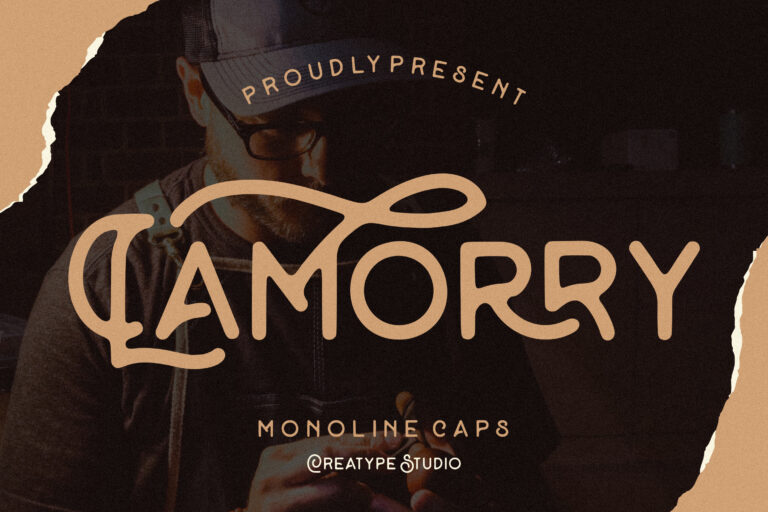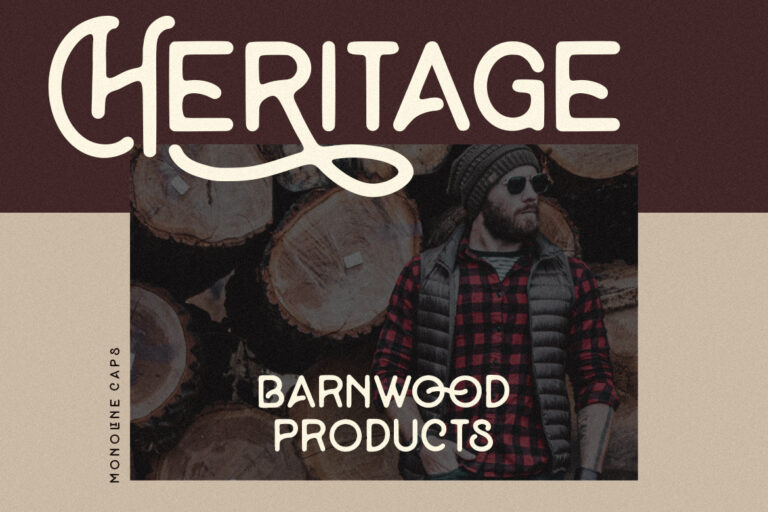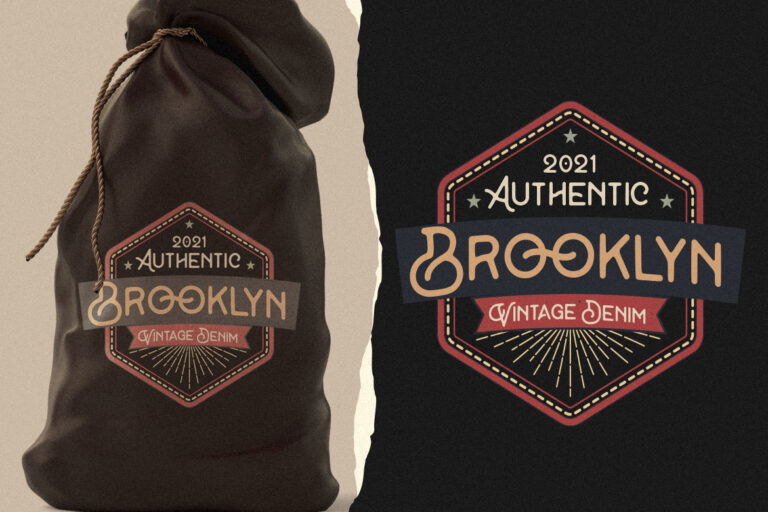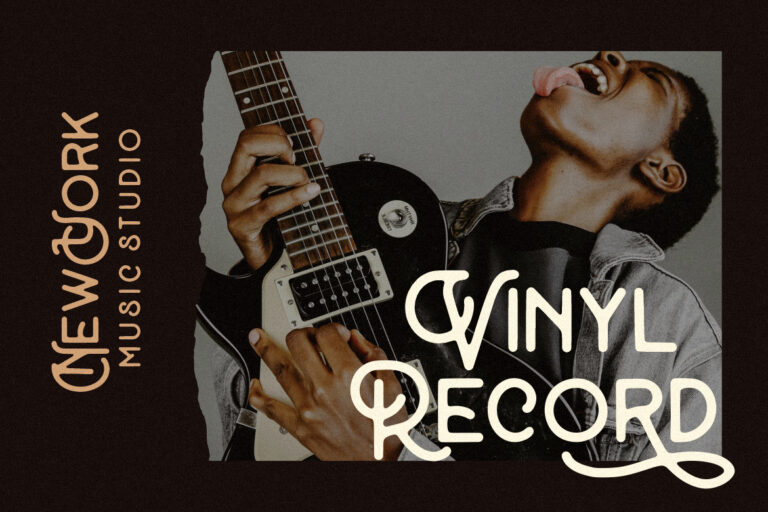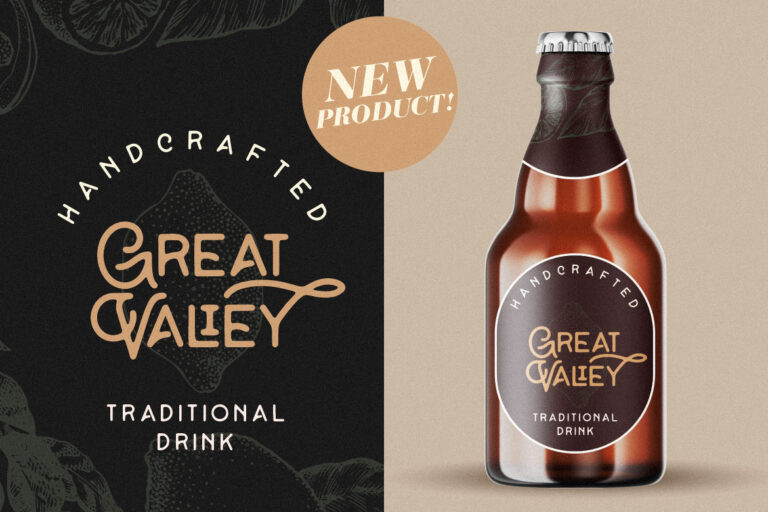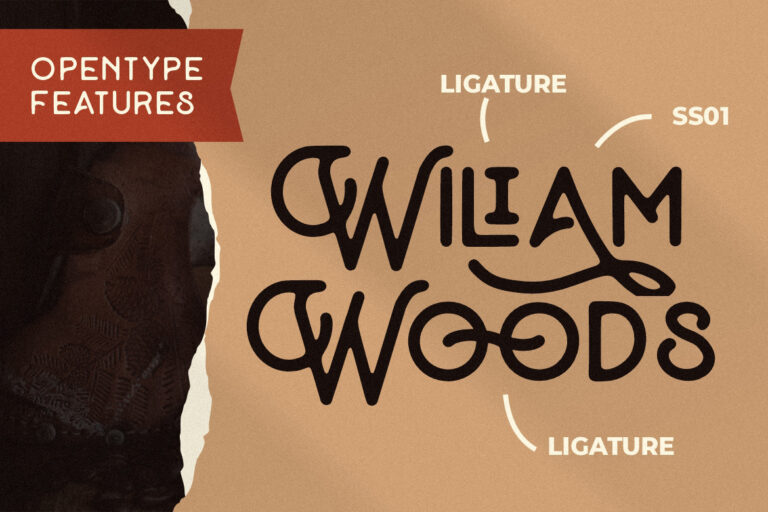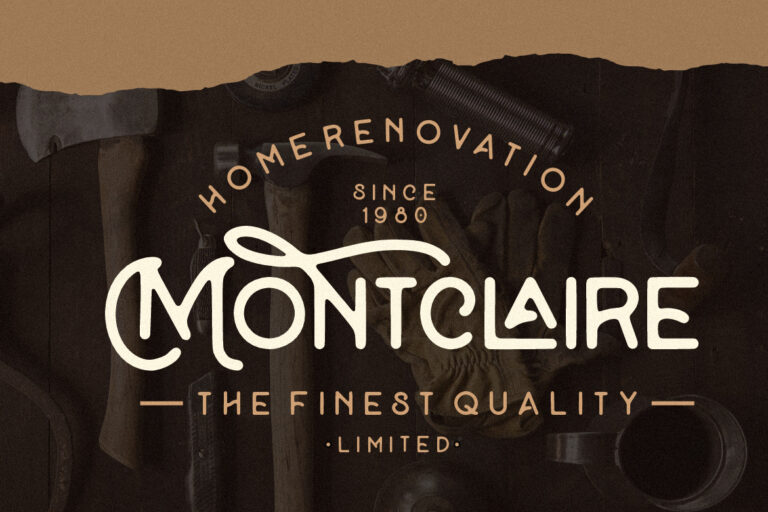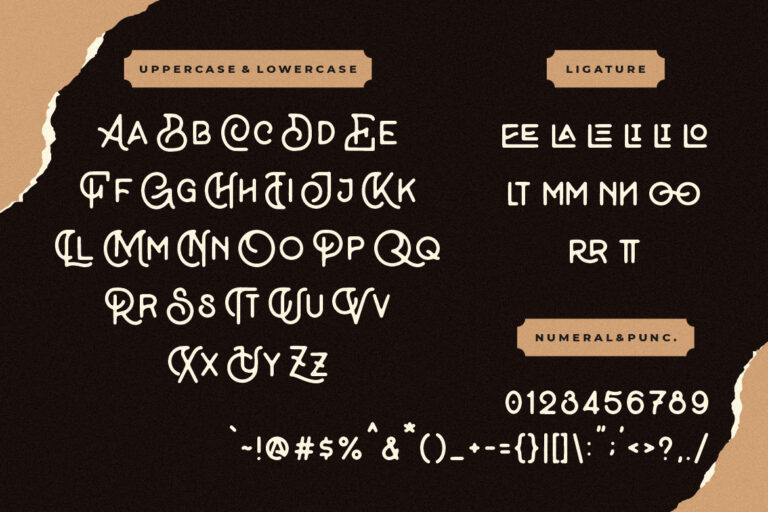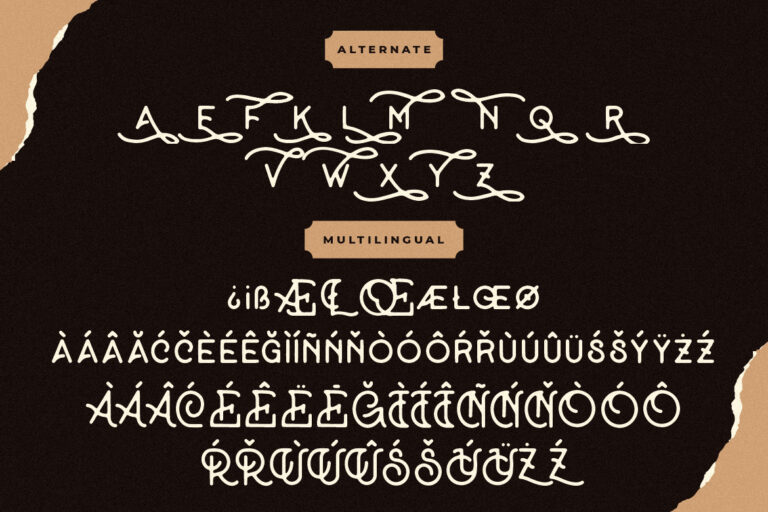
Lamorry Monoline Caps
Lamorry is a monoline caps font with a retro and modern monoline style that perfect for your vintage project.
Lamorry is perfect for branding projects, logo, wedding designs, social media posts, advertisements, product packaging, product designs, label, photography, watermark, invitation, stationery and any projects that need handwriting taste.